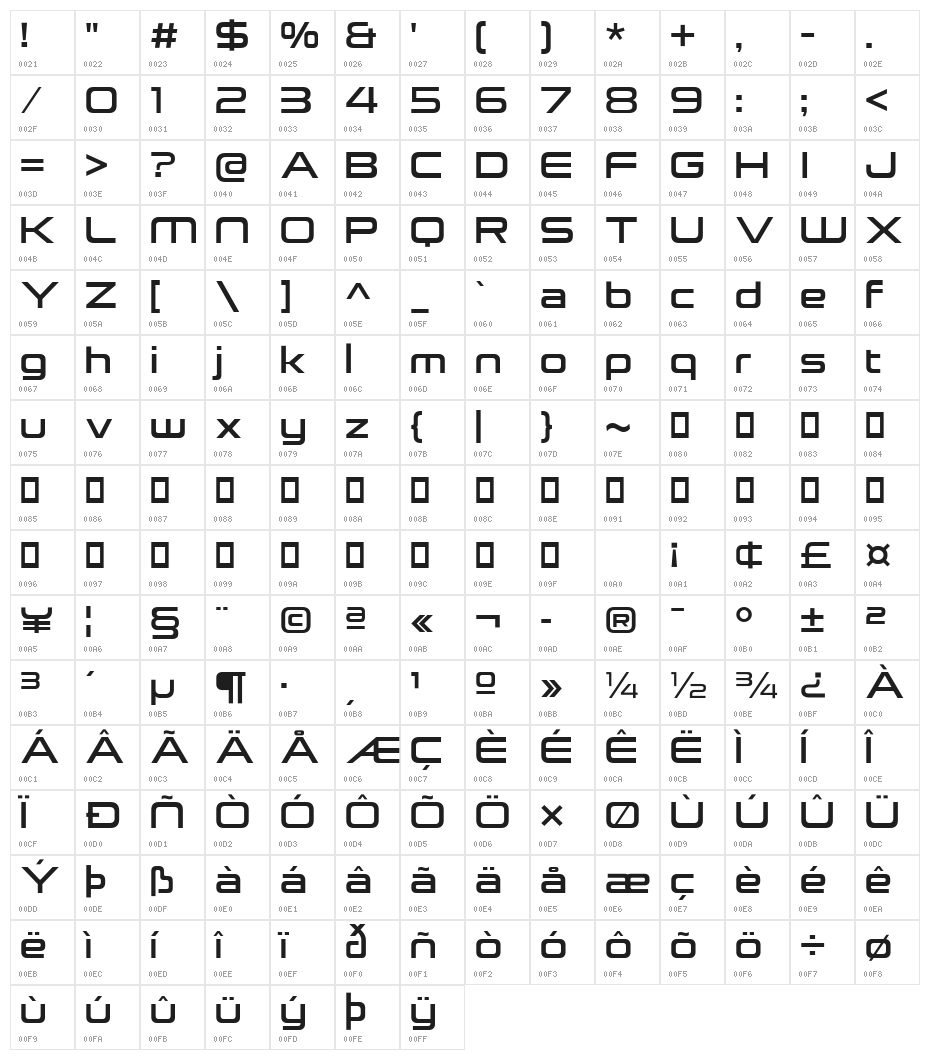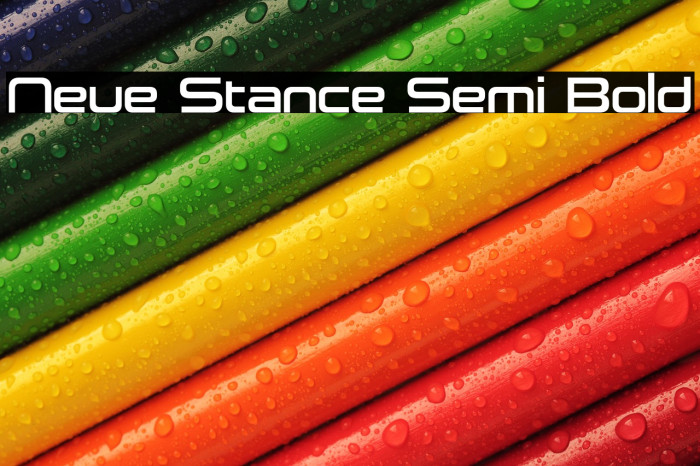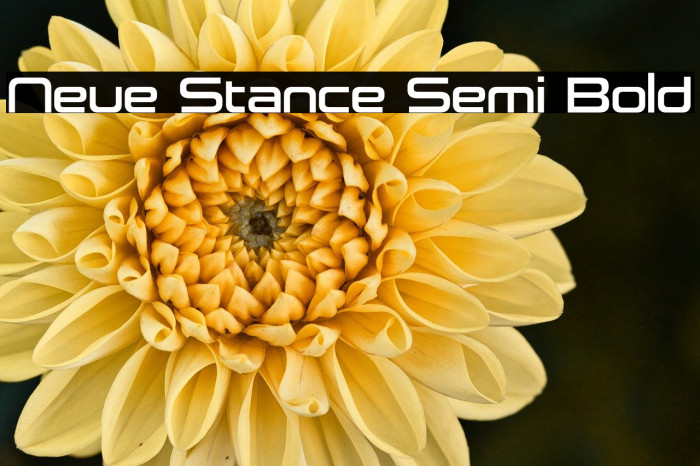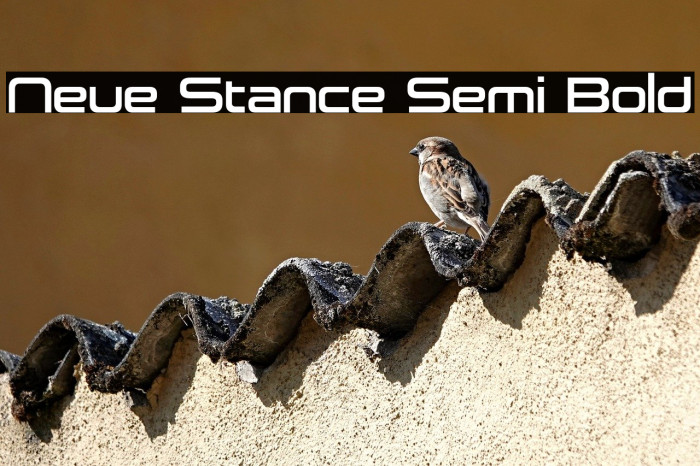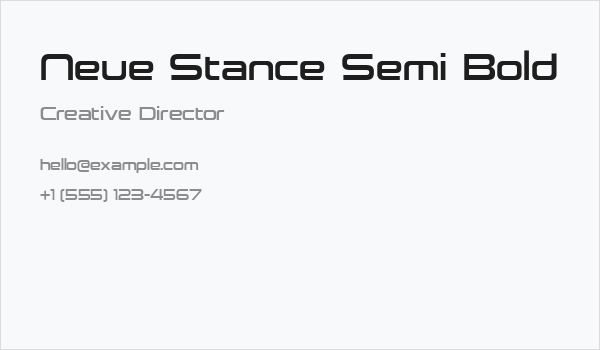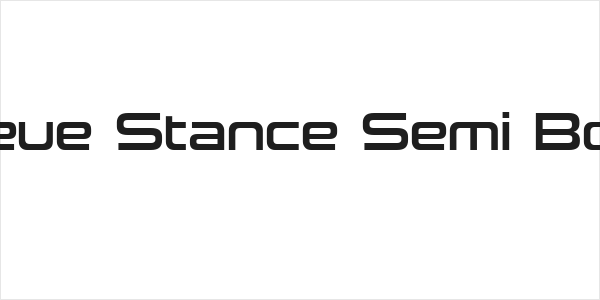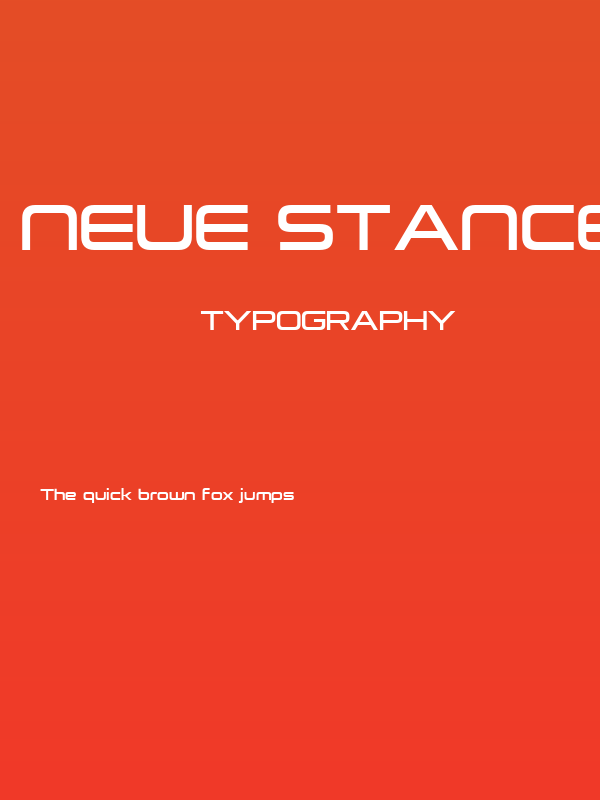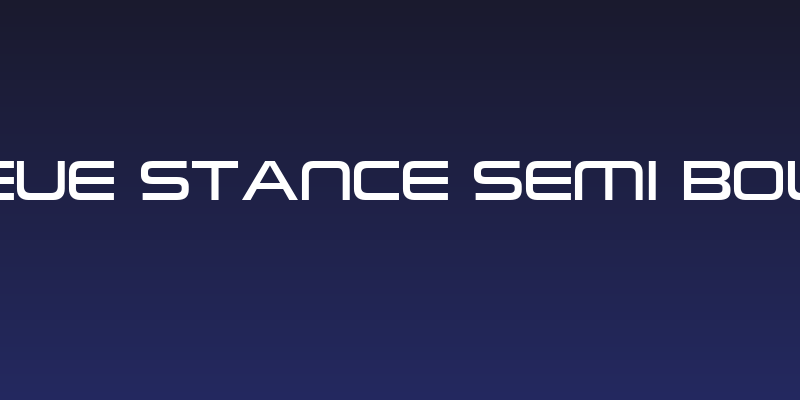
Neue Stance Semi Bold Font
Neue Stance Semi Bold Description
This font exhibits a modern and sleek design with a geometric structure. The characters are clean and well-defined, featuring a semi-bold weight that provides a strong presence without overwhelming the viewer. The uppercase and lowercase letters maintain a consistent style, with rounded edges that soften the overall appearance. The numerals and special characters are designed to match the letterforms, ensuring uniformity across all text elements. This font is versatile, suitable for both digital and print media, and can be used effectively in various design contexts.